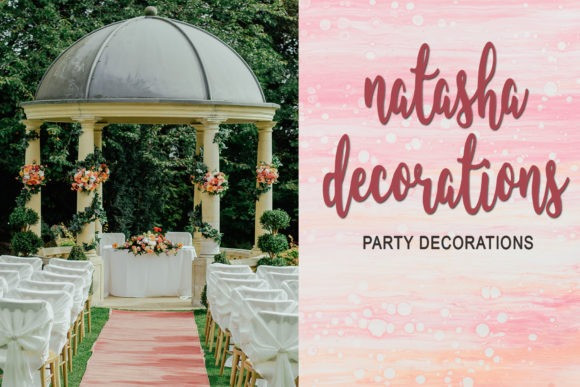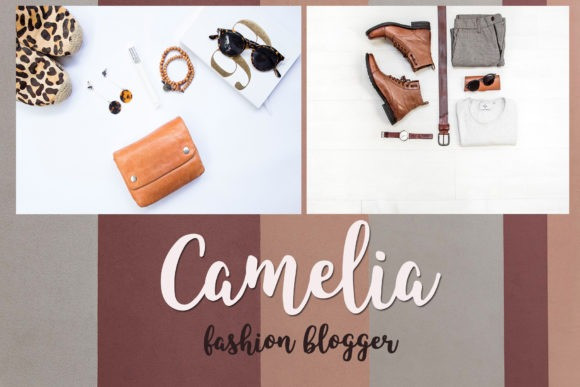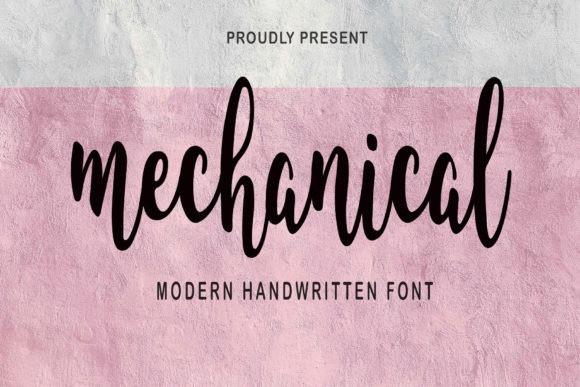
Mechanical Typeface
Mechanical Typeface, is a lovely script font featuring charming, playful characters that seem to dance along the baseline. Add this font to your most creative ideas, and notice how it makes them stand out!